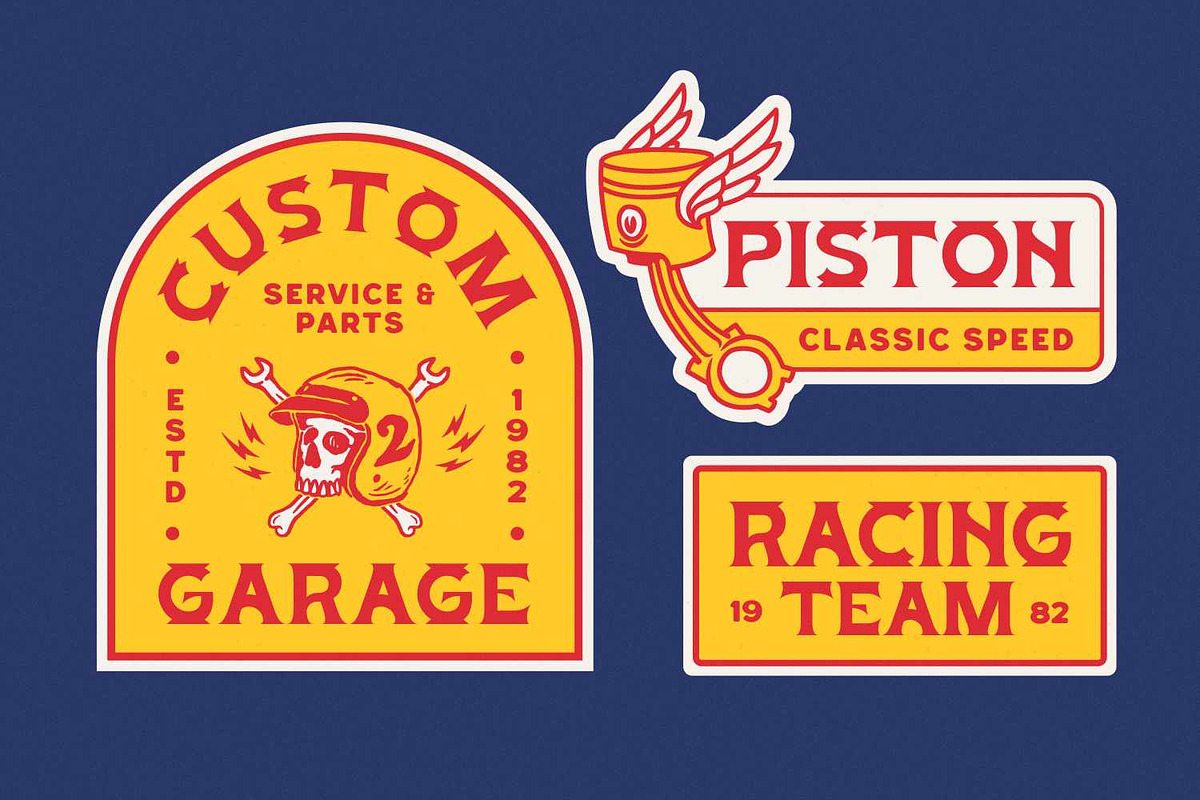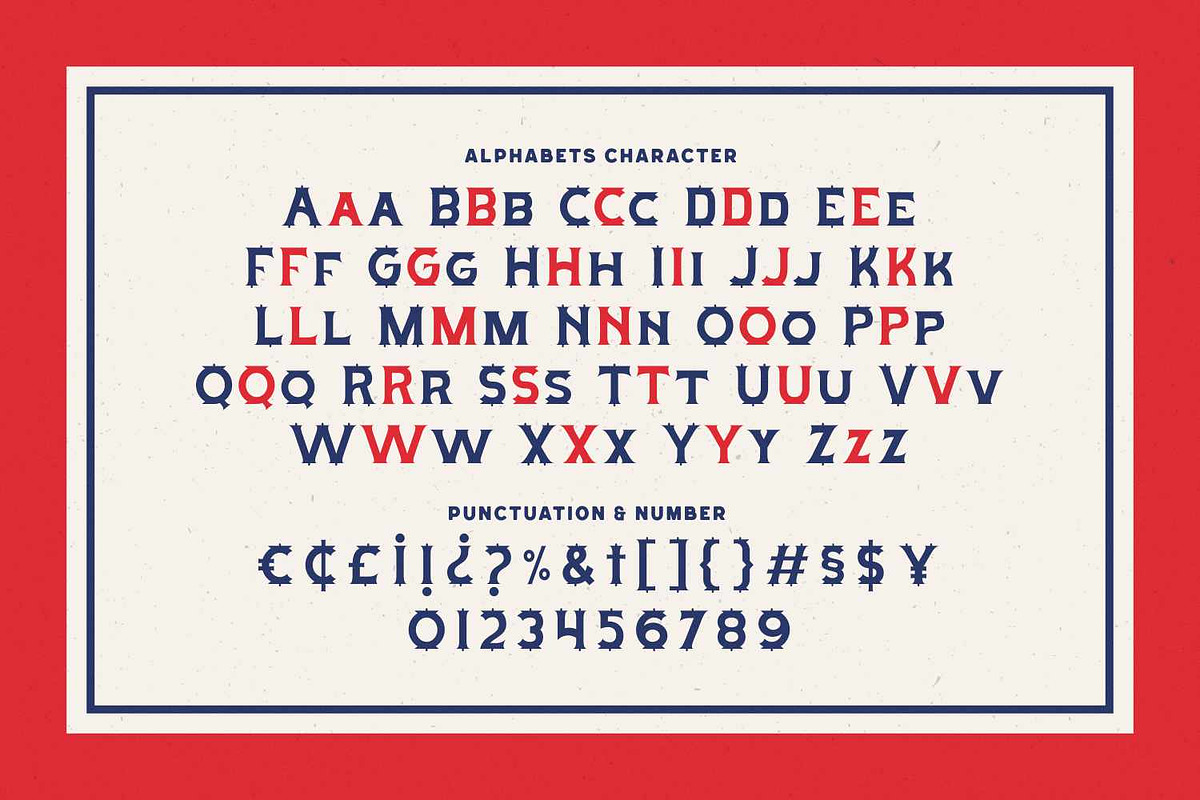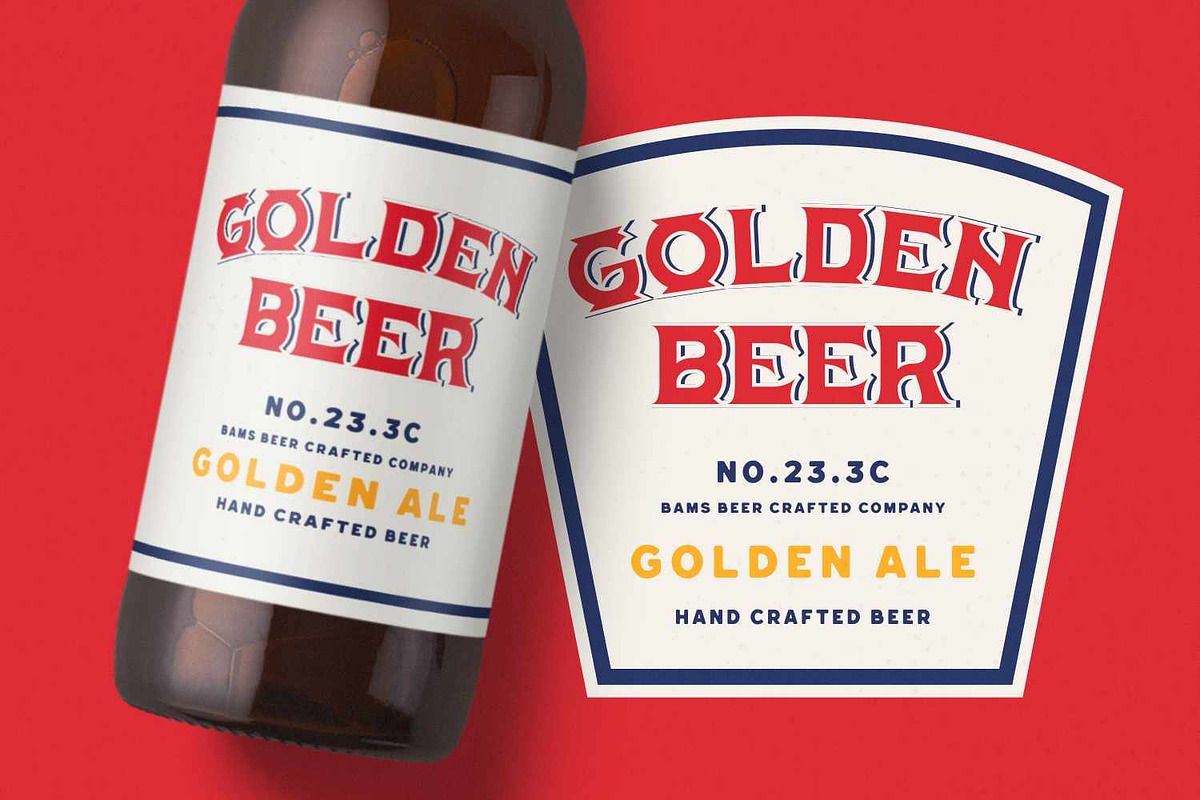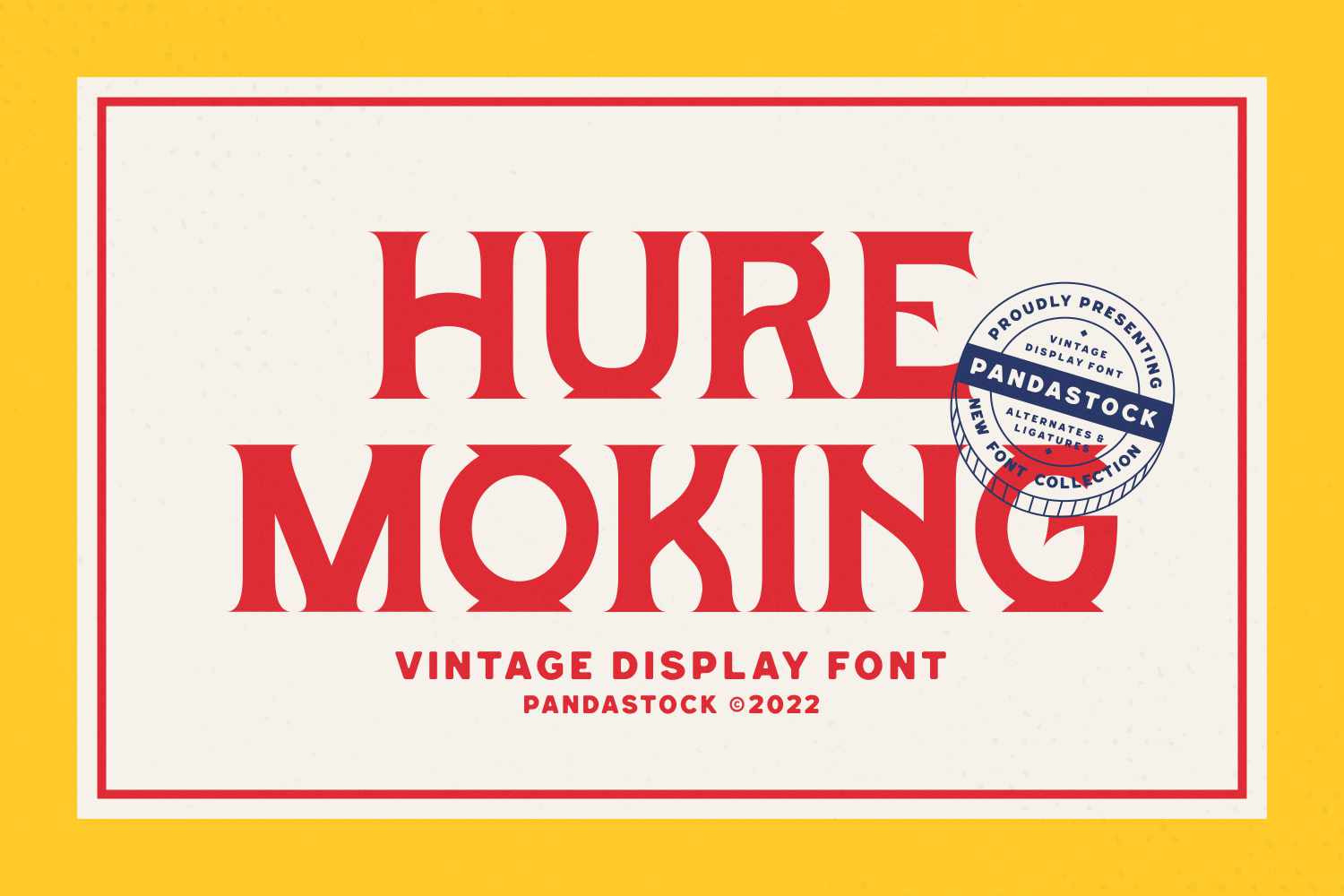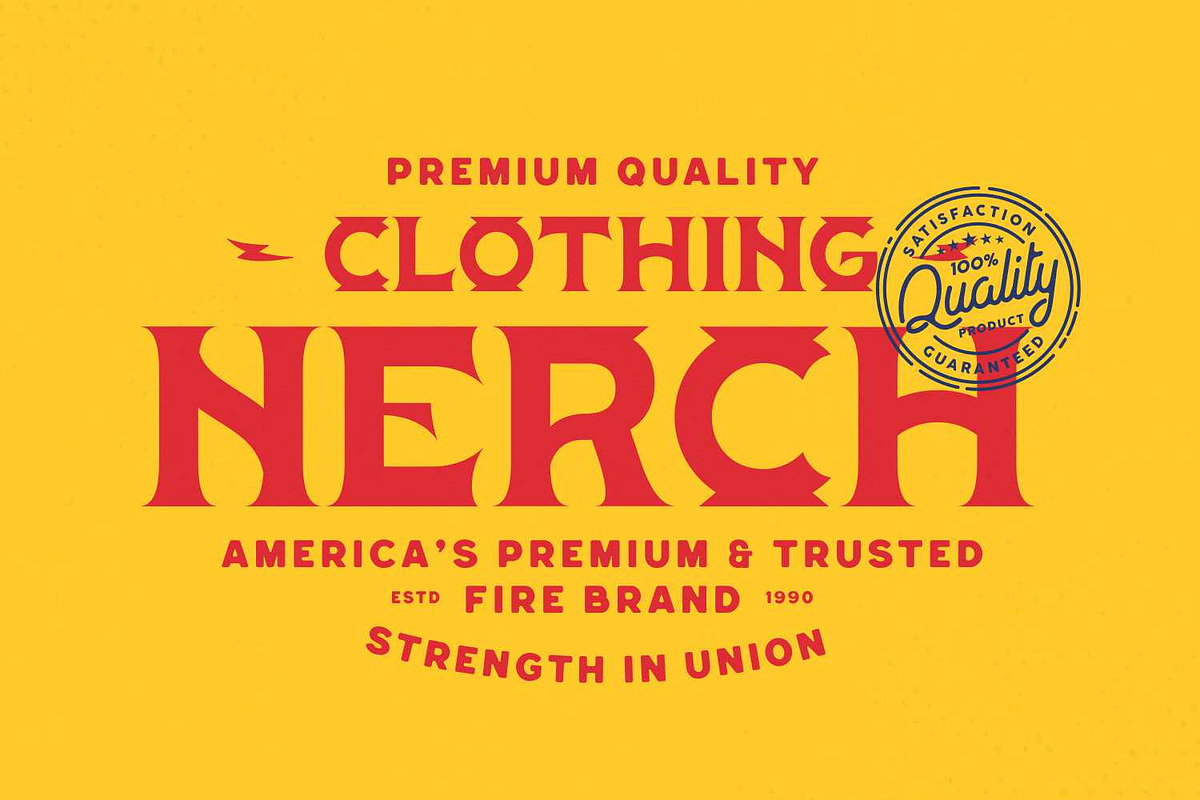
Hure Moking | Vintage Serif Font
Hure Moking is a vintage serif font with bold character and solid forms, inspired by the aesthetic of classic automotive labels and the gritty world of garages. Its thick, sturdy letterforms with rigid slab serifs and sharp angles exude a masculine, fearless attitude reminiscent of fuel tank emblems on old school motorcycles or legendary custom shop signage.
Every letterform carries elegant retro detailing, making it a great fit for branding that emphasizes heritage, craftsmanship, and authenticity.
This font shines as a headline or logo across motorcycle labels, racing team stickers, biker apparel, or garage signage. The impression it delivers is professional and timeless classic, yet highly legible perfect for bold branding that demands attention without losing its cool confidence.
- Uppercase and Lowecase Characters.
- PUA Encoded Characters.
- Numerals and Punctuations.
- Alternates and Ligatures.
- Multilingual Support.